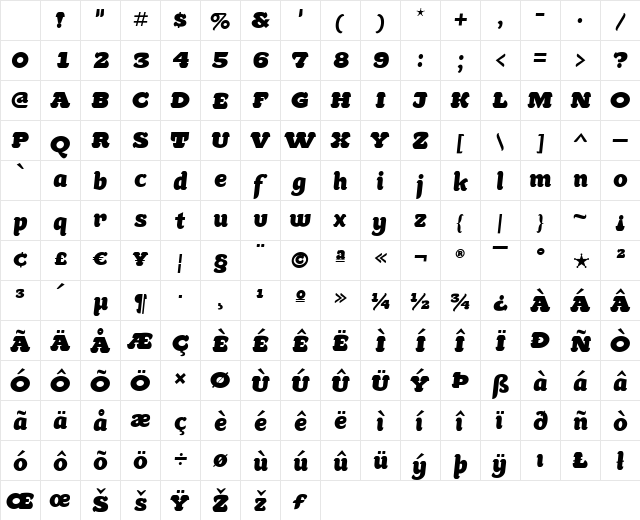
Complete ManifestDestiny Italic Regular glyph index. Displaying only characters natively supported by ManifestDestiny Italic Regular font.
ManifestDestiny Italic is a composed and adaptable typeface that performs quietly and consistently across a wide range of design contexts. The slanted form adds forward momentum and visual energy.